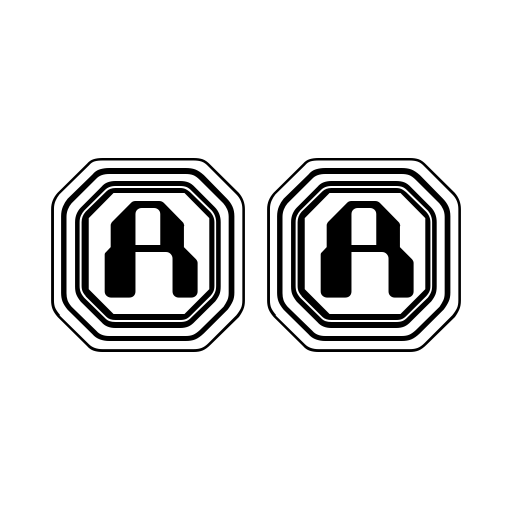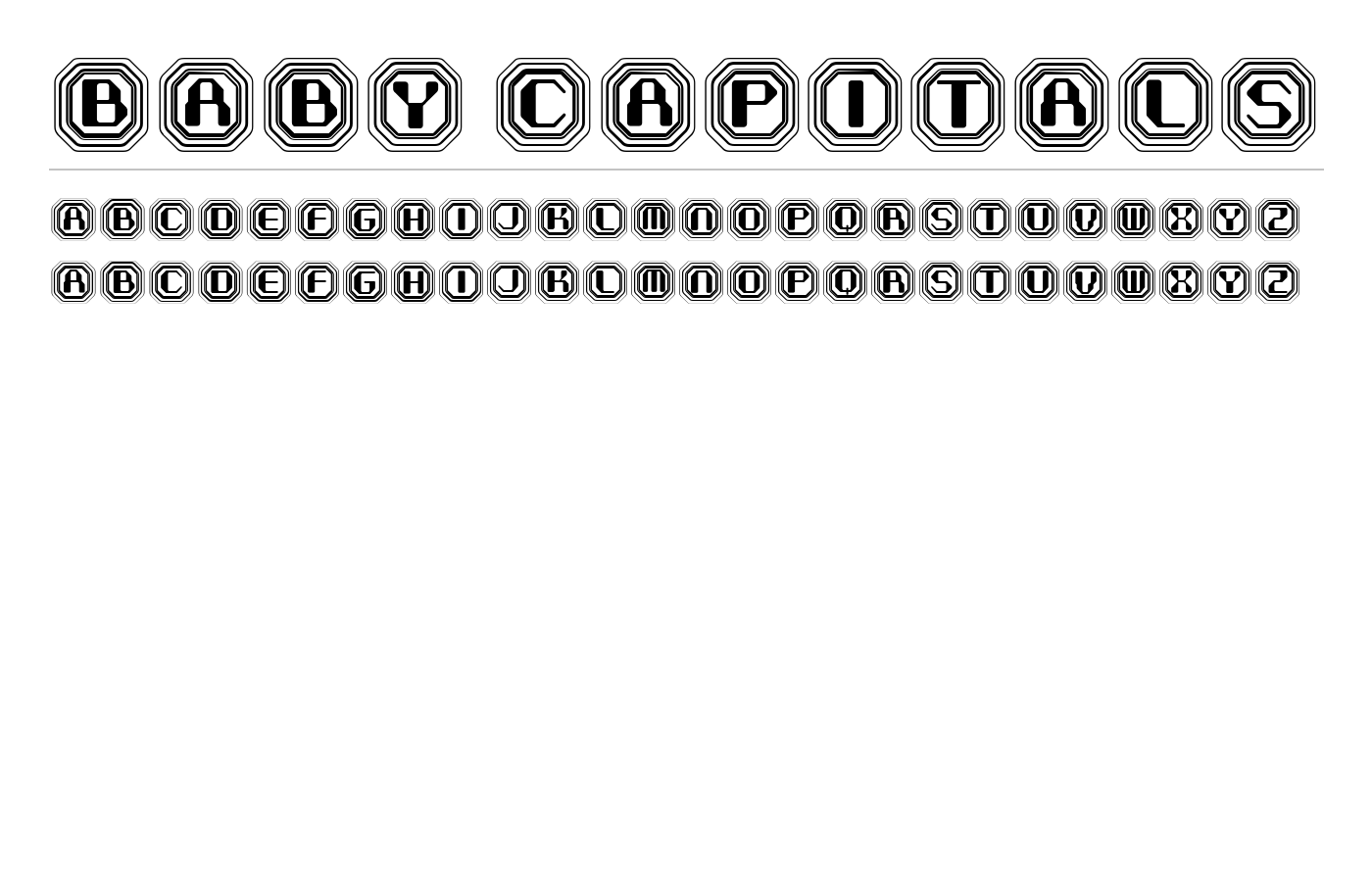
Baby Capitals is a bold, geometric sans serif font featuring uniquely boxed letterforms that create a playful yet structured appearance. With its strong, uniform strokes and condensed shapes enclosed in multi-layered octagonal borders, it communicates a modern, decorative style perfect for eye-catching headlines, logos, and branding that demands a futuristic or tech-inspired vibe. This font works great where a distinctive, energetic look is needed to stand out in posters, packaging, or editorial displays.
Baby Capitals Font